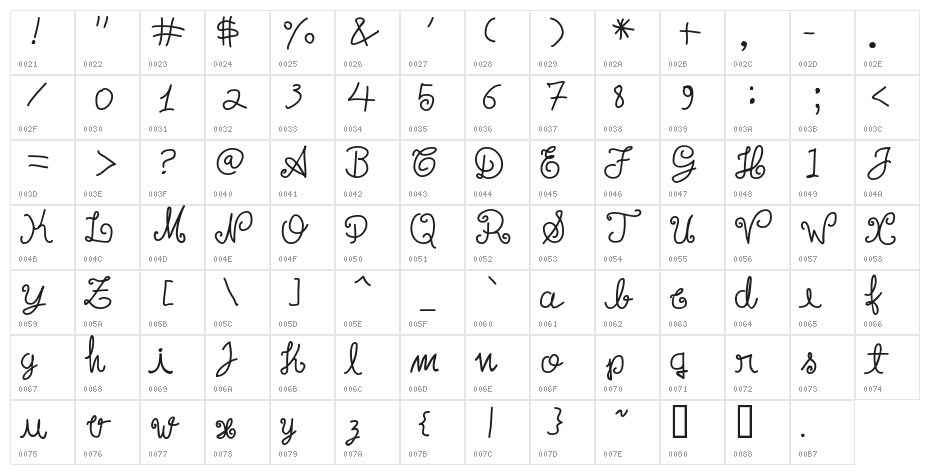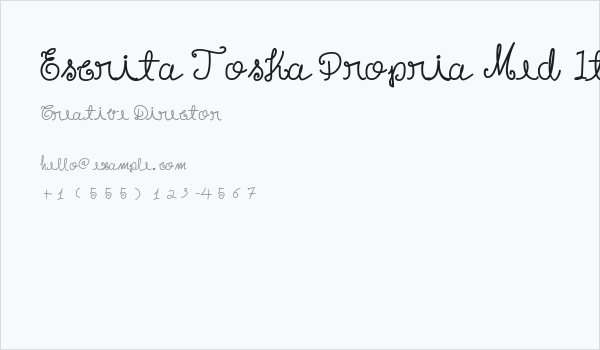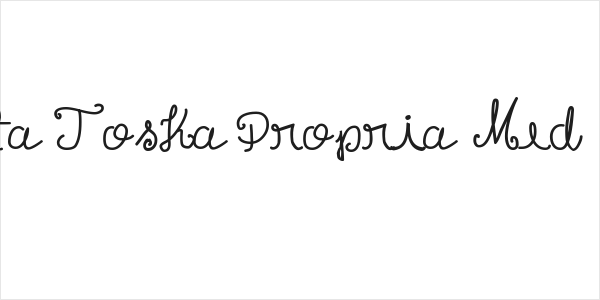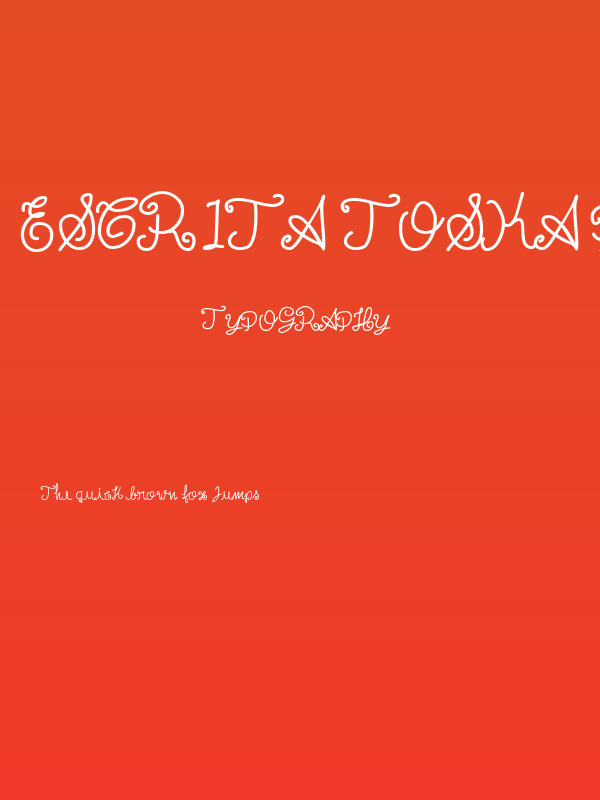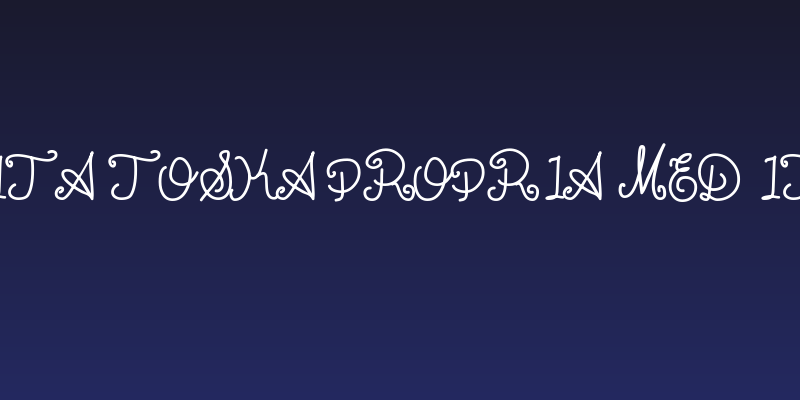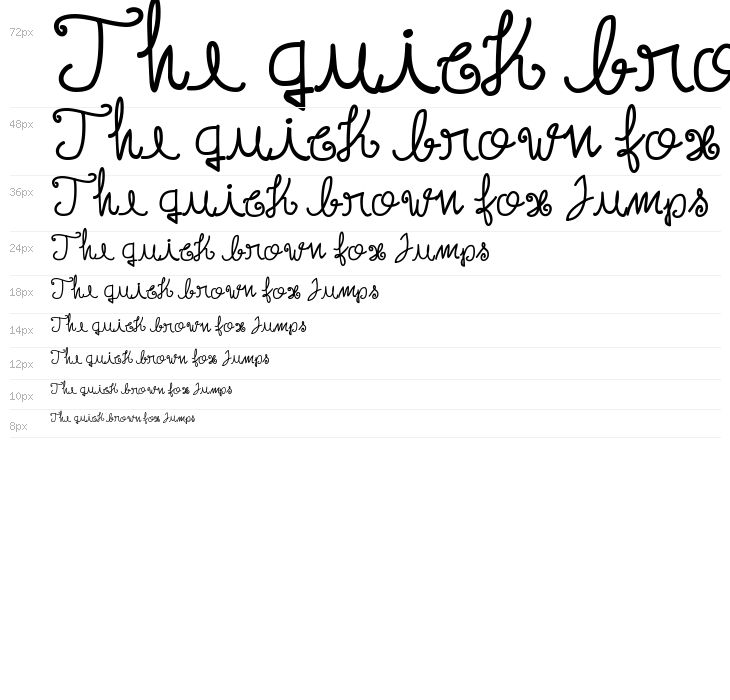
Escrita Toska Propria Med Italic Font
Escrita Toska Propria Med Italic Description
This font features a playful and whimsical script style, characterized by its flowing, cursive letterforms. The uppercase letters are bold and decorative, with unique flourishes that add a touch of elegance and creativity. The lowercase letters maintain a consistent style, with smooth curves and a slight slant, enhancing the font's handwritten appearance. The numerals are distinct and easy to read, while the special characters complement the overall design with their cohesive style. This font exudes a sense of personality and charm, making it ideal for projects that require a personal touch.
| Proposed Projects | Ideal for greeting cards, invitations, personal branding, and creative projects that require a handwritten touch. |